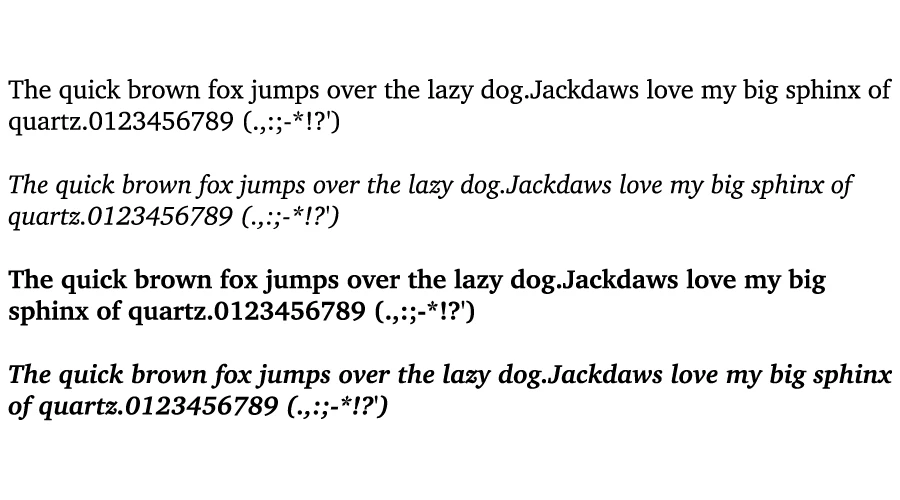
Charter is a serif typeface designed by Matthew Carter in 1987 for Bitstream Inc. It is also known as Bitstream Charter. Charter based on Pierre-Simon Fournier’s characters, originating from the 18th century. Charter was originally optimized for printing on the low-resolution 300 dpi laser printers of the 1980s and remains suitable for printing on both modern high-resolution laser printers and inexpensive lower resolution inkjet printers due to its strong, legible design.
As the font has a eye-catchy typeface, it is good for almost every section you need.
- Designing Work: Charter font is compatible with every type of designing work. This font is also usable for cards, leaflets, newspapers (online/offline), presentations, webpages, blogs, book covers, social media posts, advertisements, product designs, posters, and many more.
- Headline: For the Headlines and Text, Charter font is very good to use. You can utilize its couple of formats according to requirements.
- Official work or Documentation: The font has the look to use in the official work and documentation.
- Logos: You can design your logos with it.
- Websites: I have seen various websites use this font.
| Style | Serif. |
| Designer | Matthew Carter. |
What type of font is Charter Font?
Ans: Charter is a serif typeface designed by Matthew Carter in 1987.